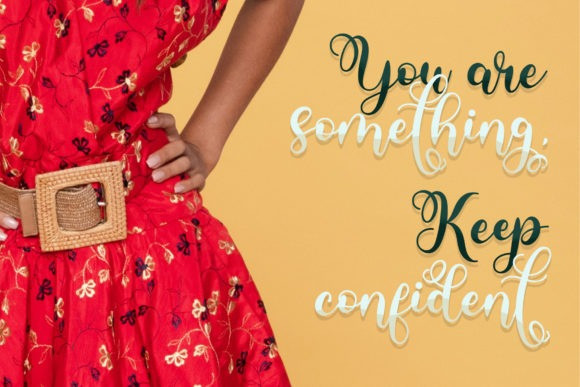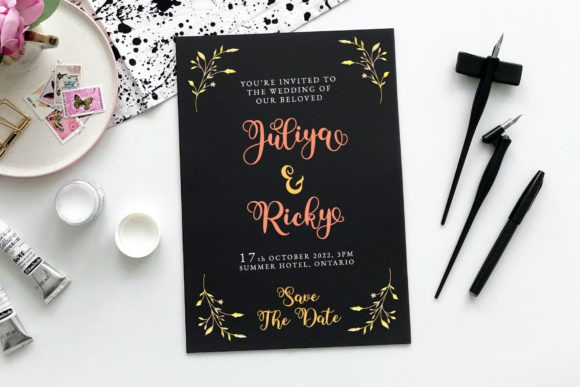
Yushina Calligraphy Font
Yushina Calligraphy Font is a modern and sweet handwritten font. Fall in love with it and bring your projects to the highest levels!